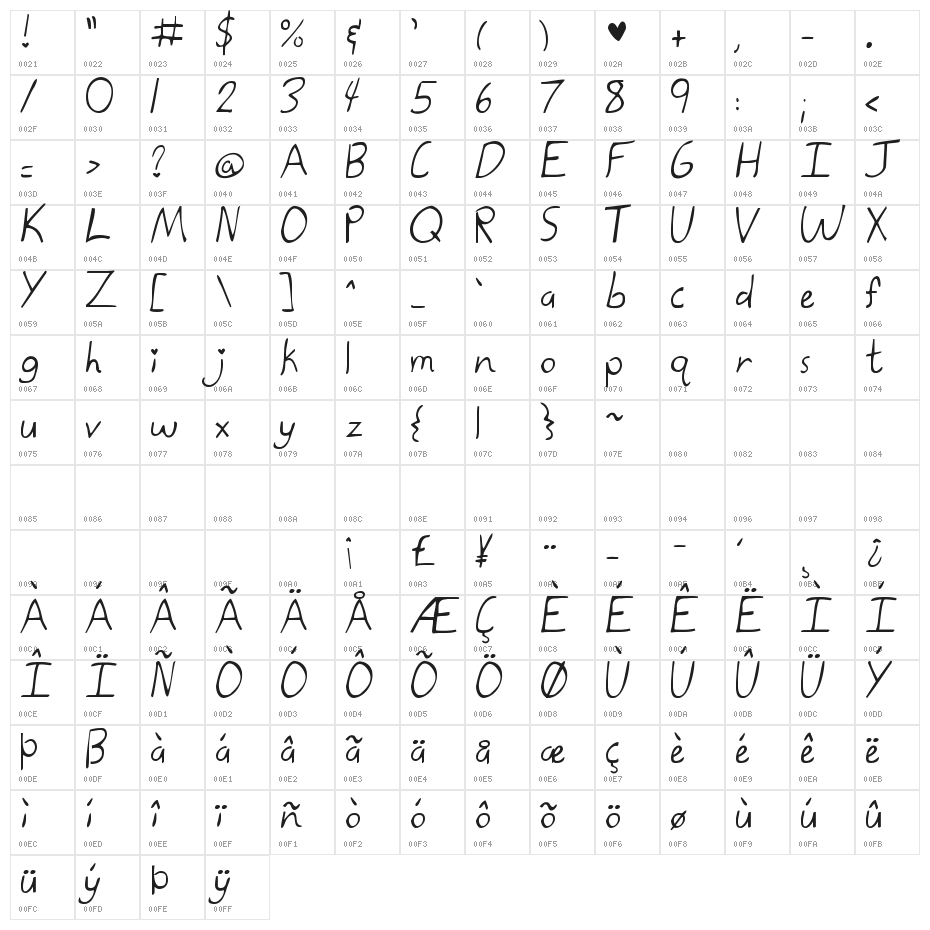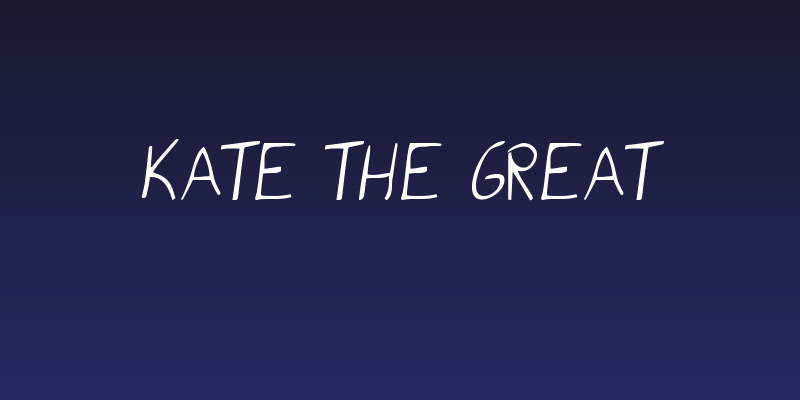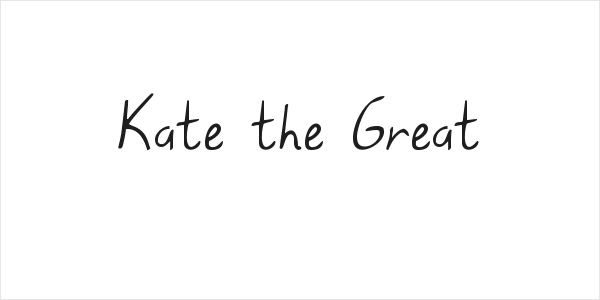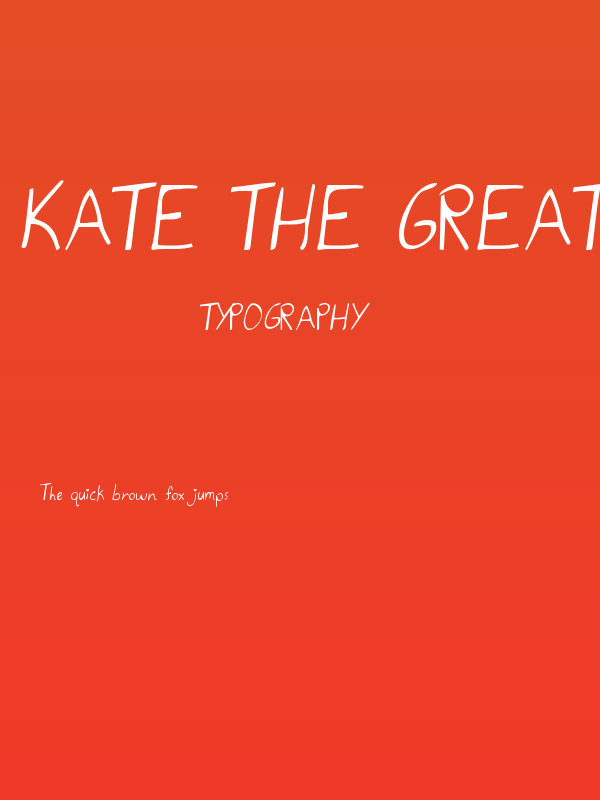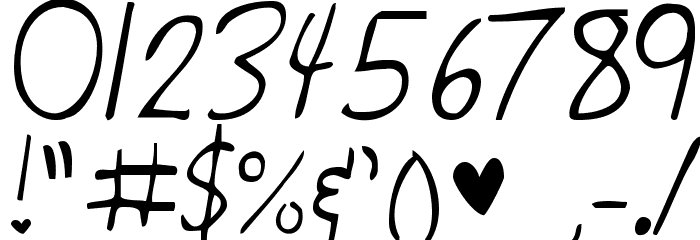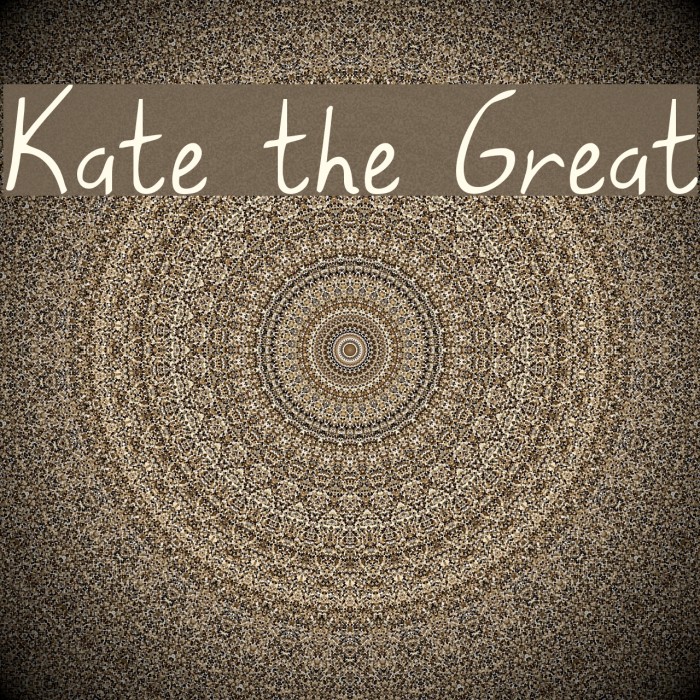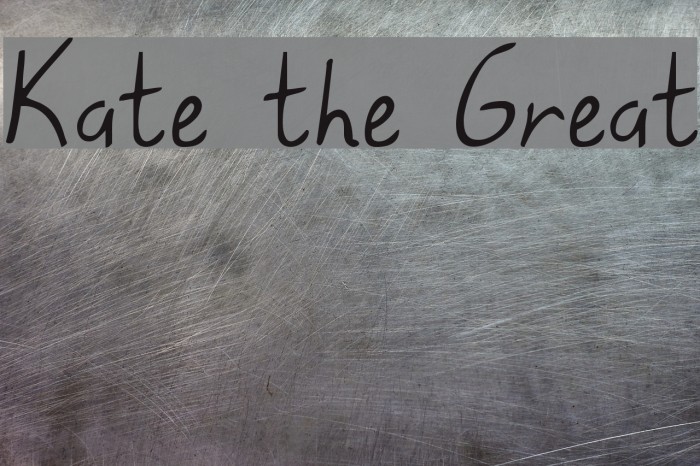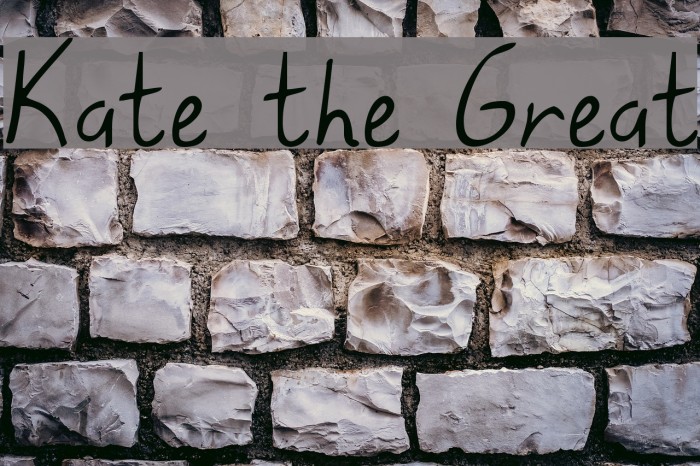
Kate the Great Font
Kate the Great Description
This playful and whimsical font features a handwritten style with a casual and friendly appearance. The letters are slightly slanted, giving a dynamic and lively feel. Uppercase characters are tall and narrow, while lowercase letters are more rounded and feature unique embellishments, such as hearts above the 'i' and 'j'. The numbers are consistent with the overall style, maintaining a playful and approachable look. Special characters are creatively designed, adding to the font's charm. The overall impression is informal and fun, making it suitable for projects that require a personal touch.
| Overall Style | Whimsical |
| Proposed Projects | Ideal for greeting cards, children's books, playful branding, and informal invitations. |